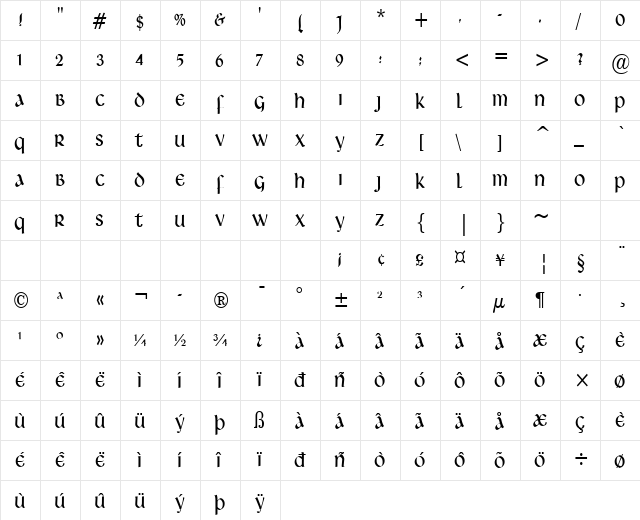
Leo-Condensed Normal
Design Context for Leo-Condensed Typeface
Leo-Condensed is a composed and adaptable typeface that performs quietly and consistently across a wide range of design contexts. The condensed width makes it efficient for tight spaces without sacrificing legibility.